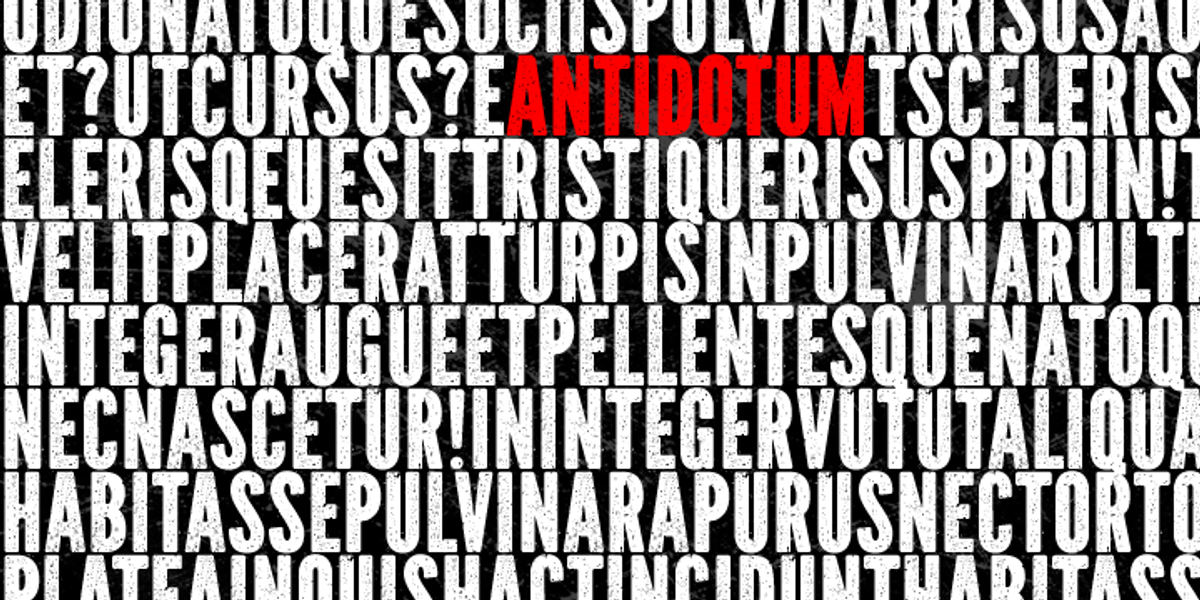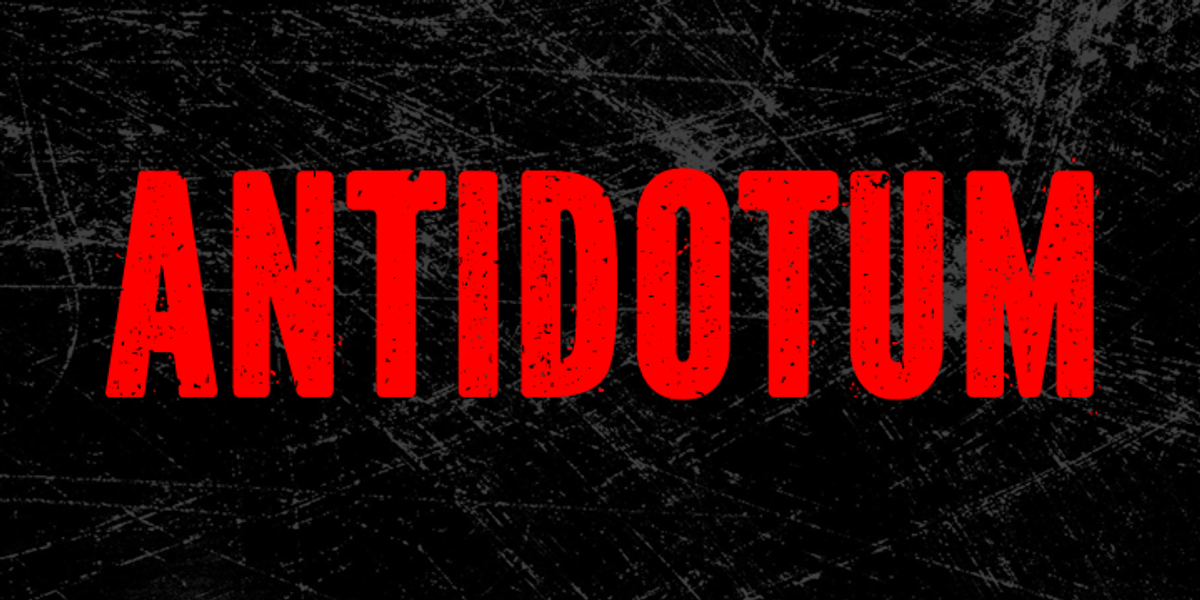
Antidotum
Antidotum is a grunge-style display font with a handmade, letterpress aesthetic. It features two distinct sets of capital letters for added versatility. The distressed look and industrial vibe make it suitable for headlines, branding projects, and posters.